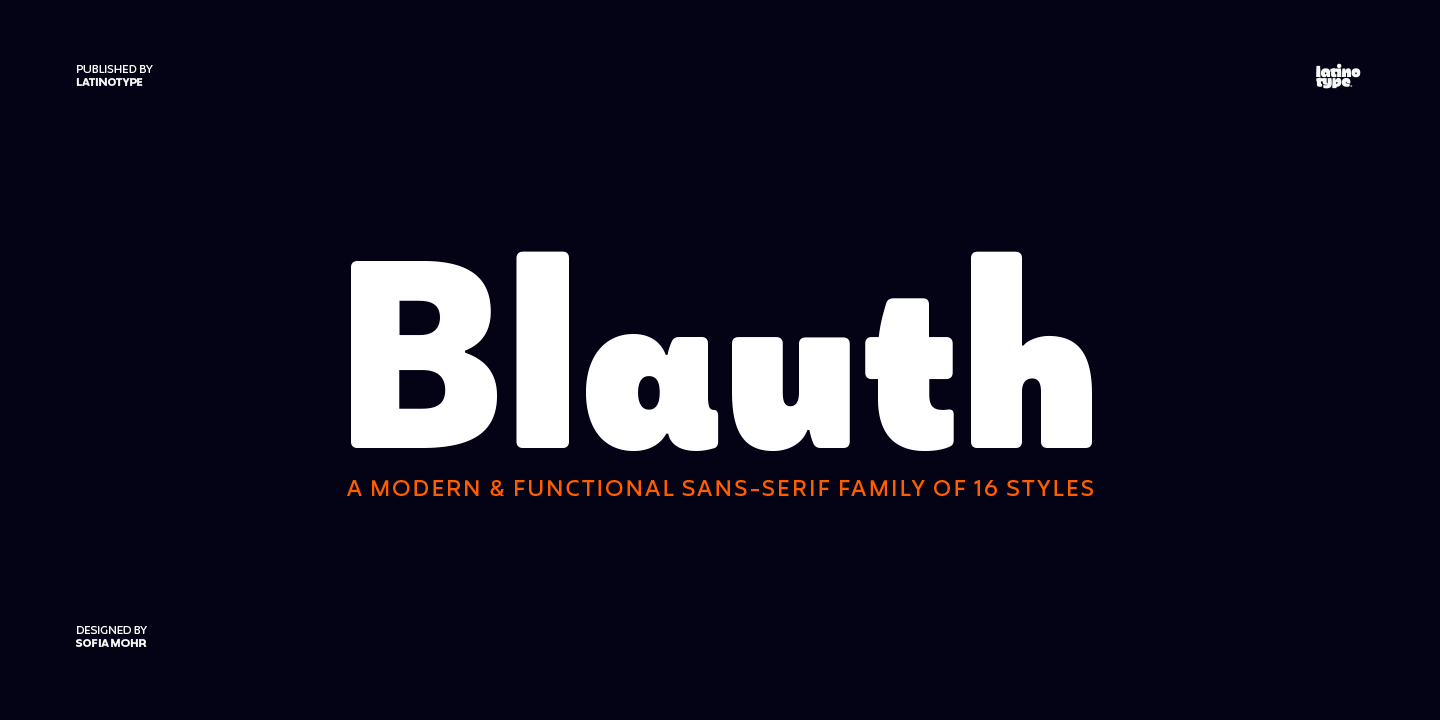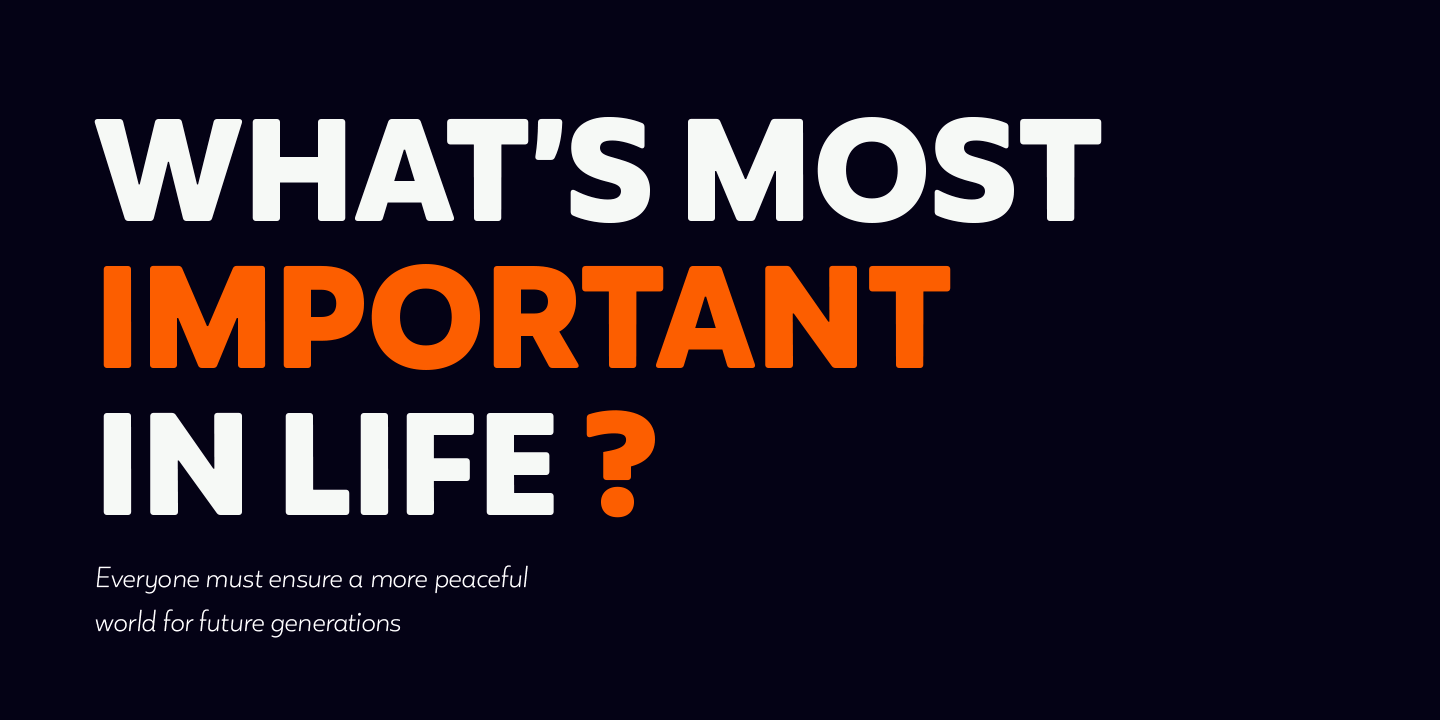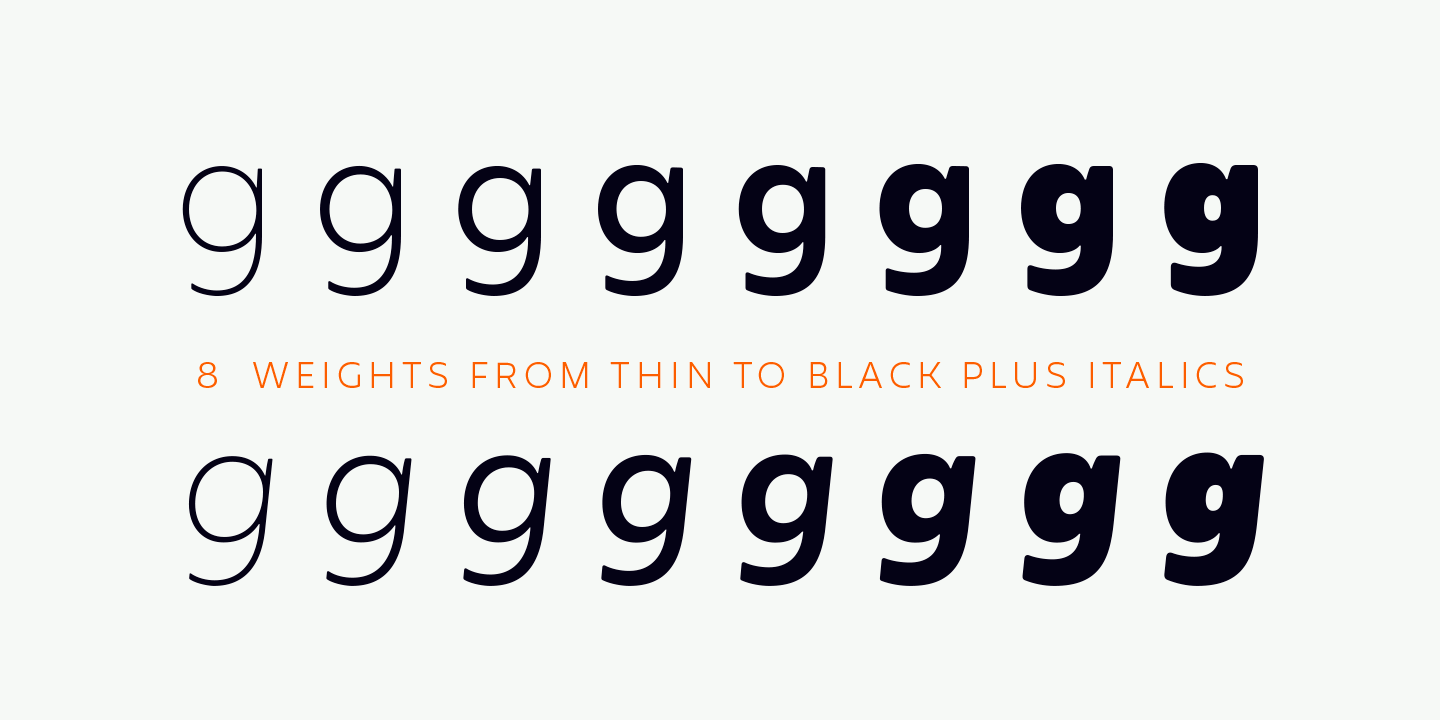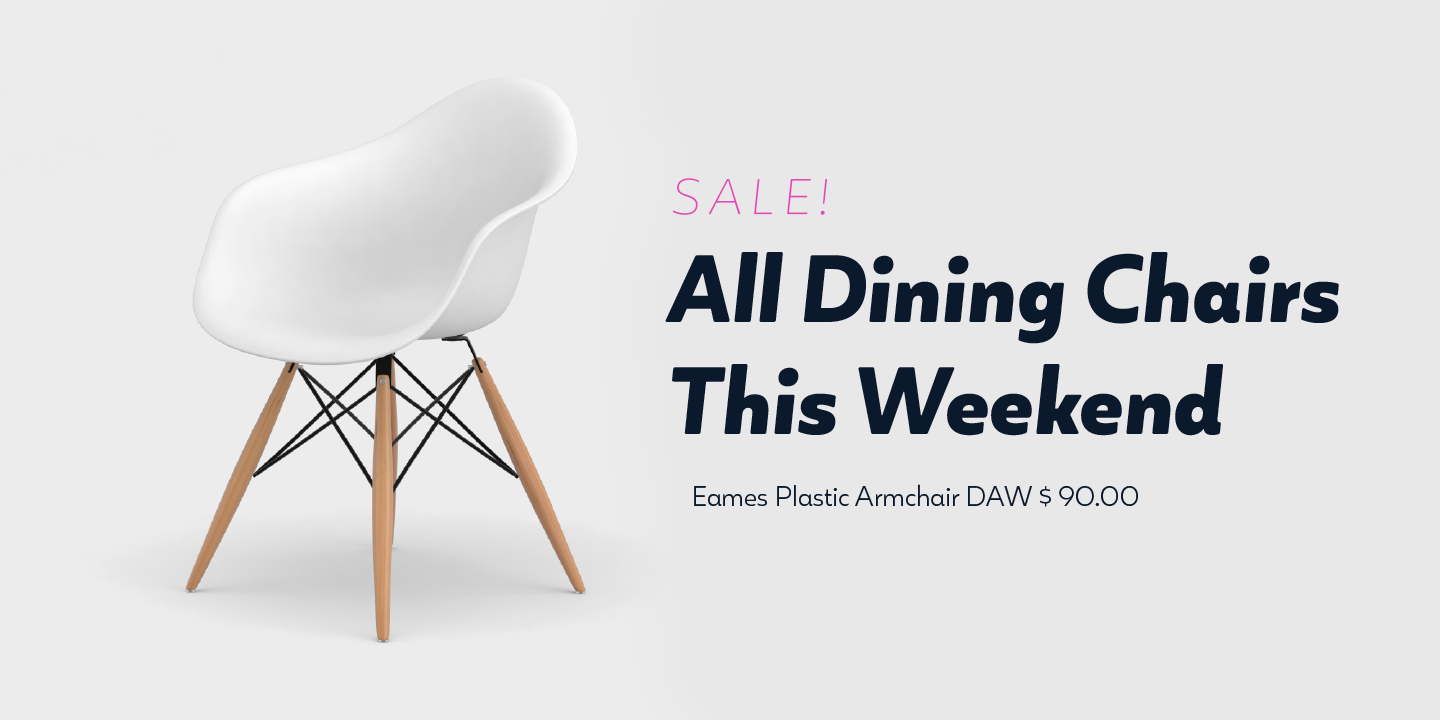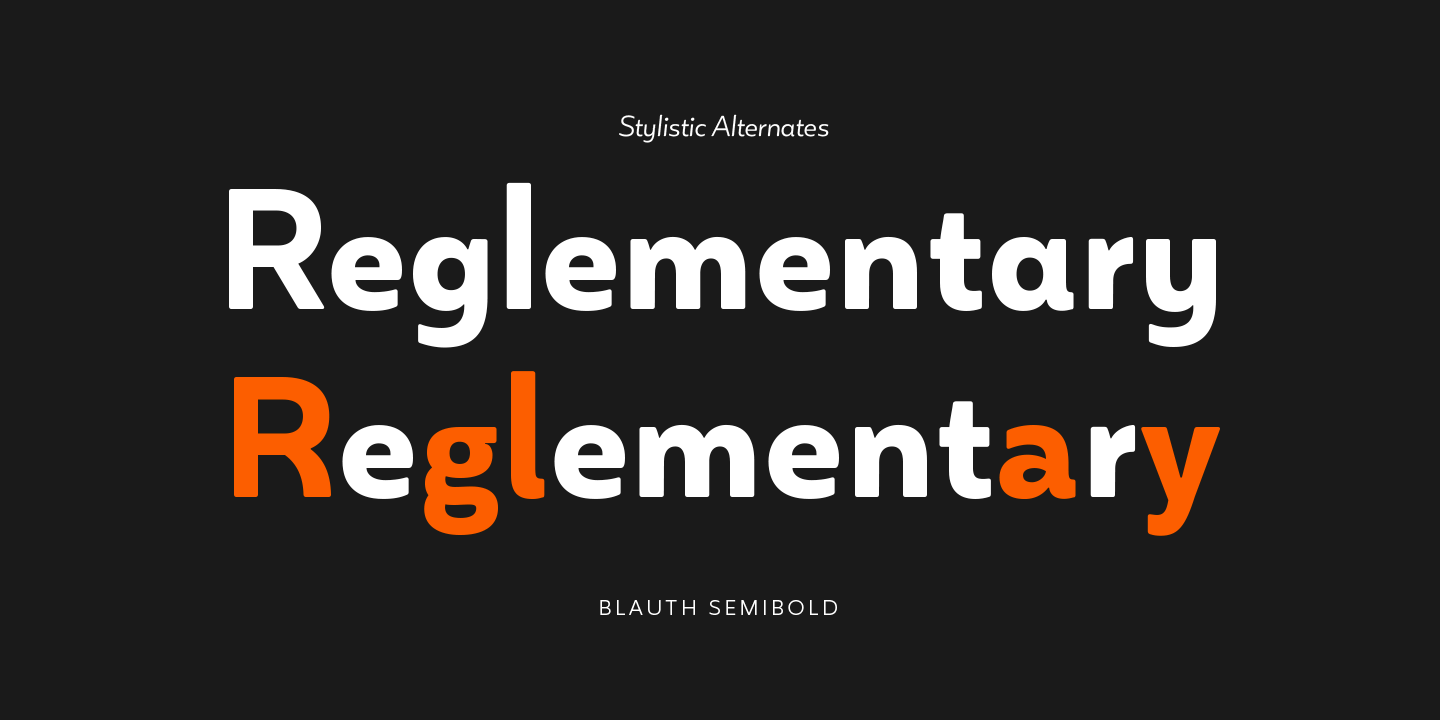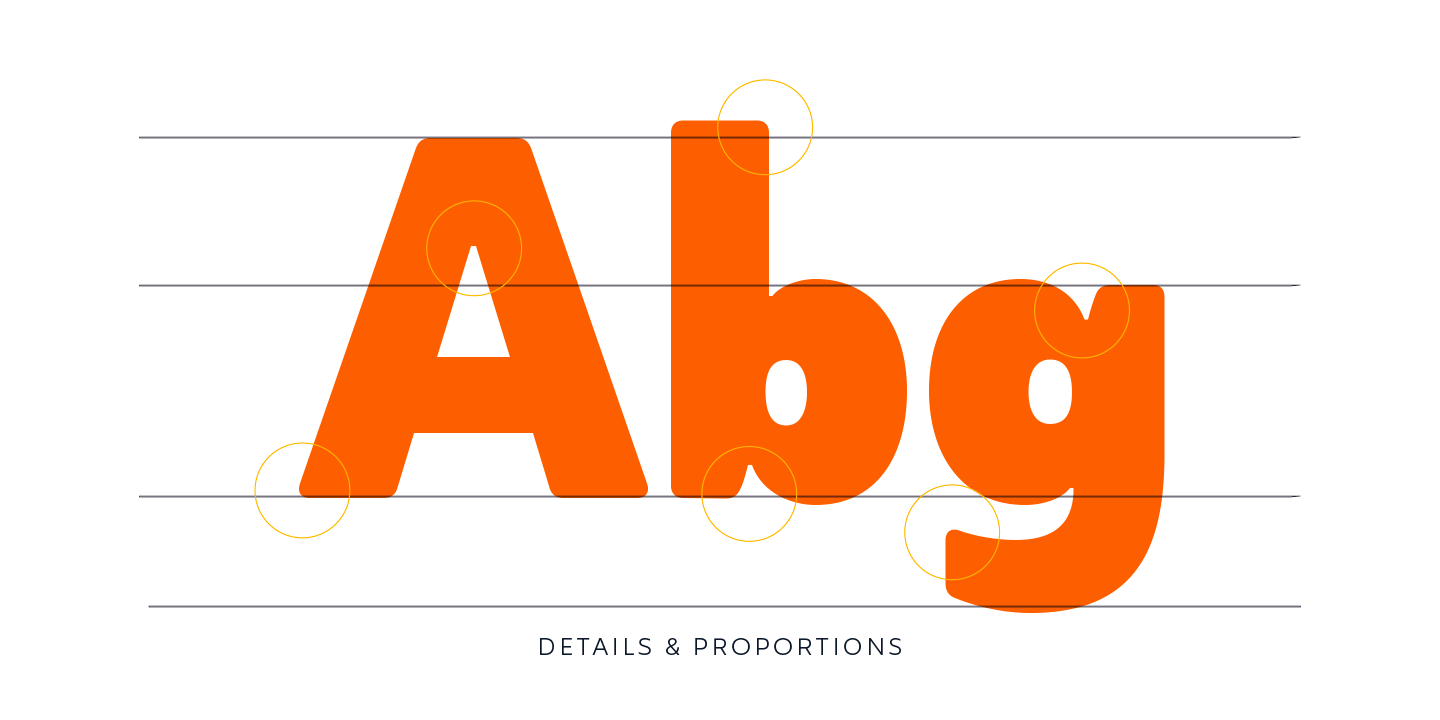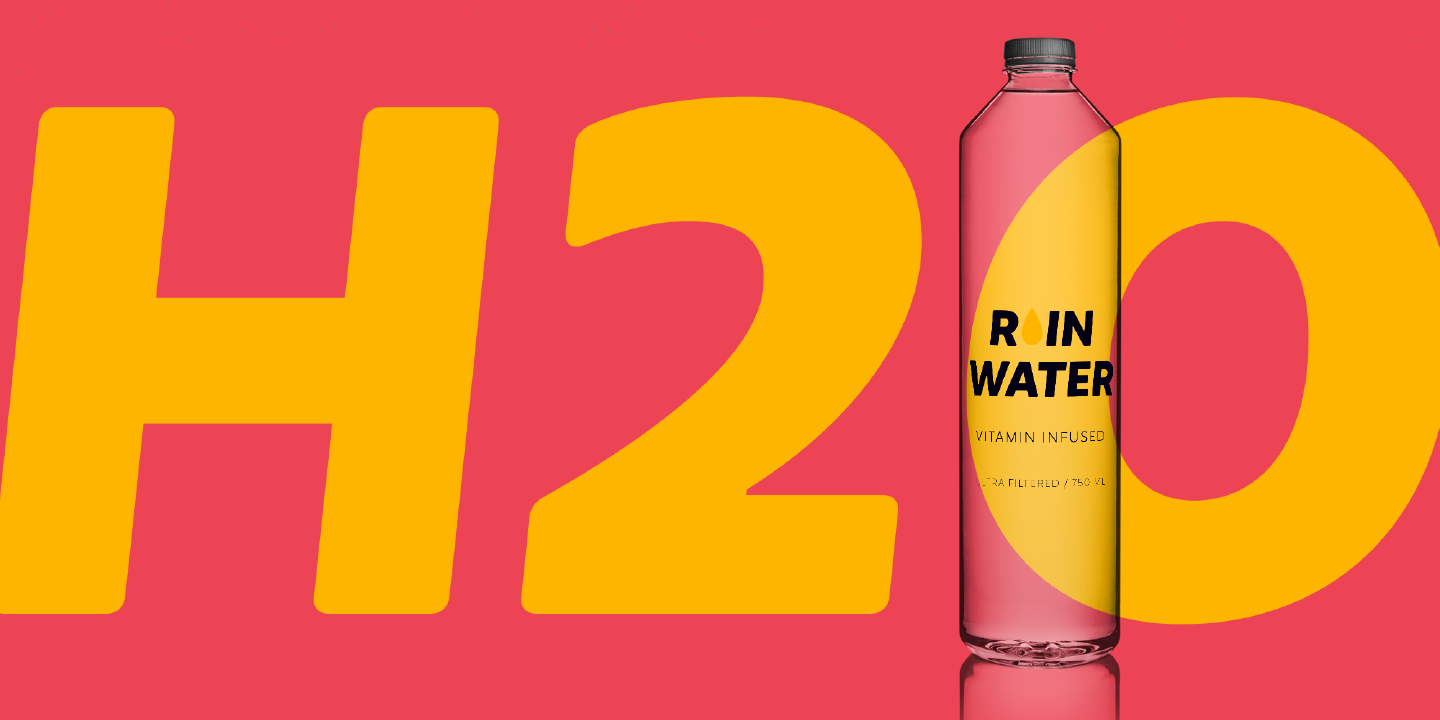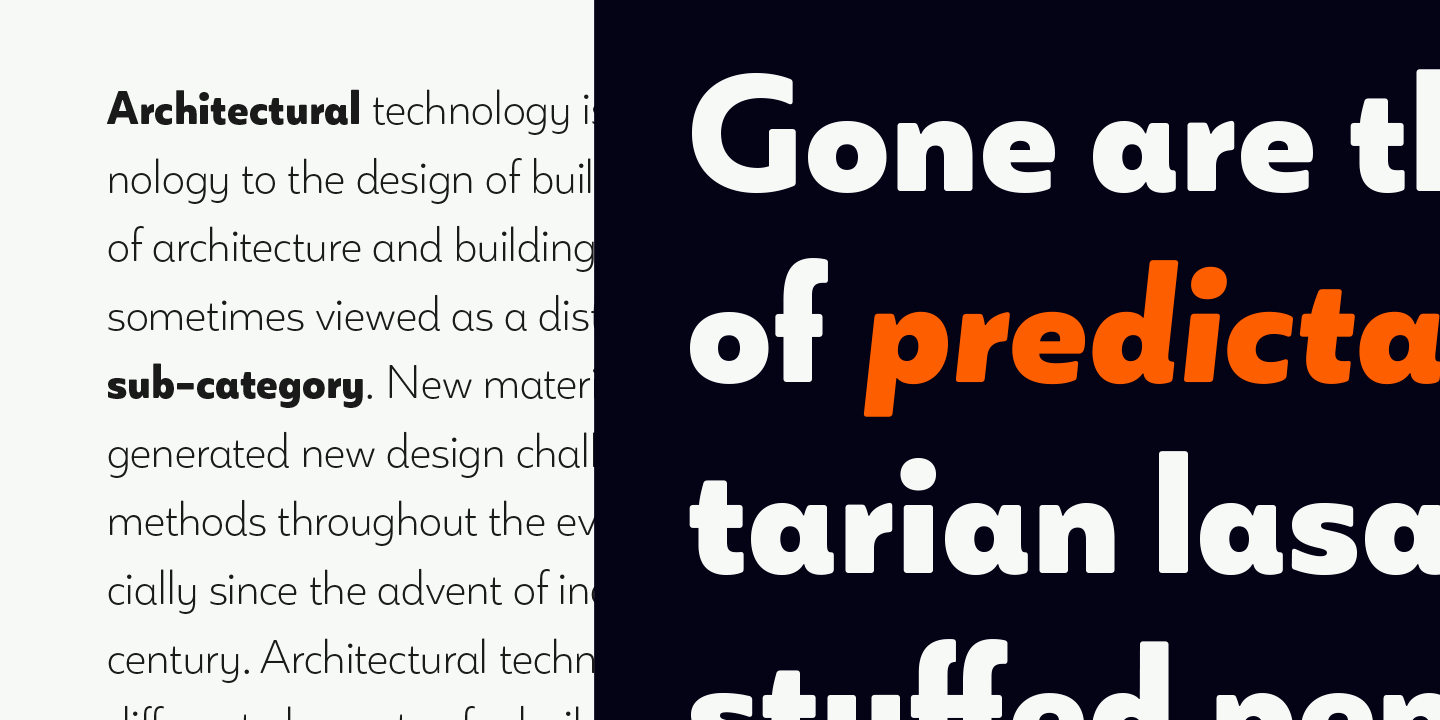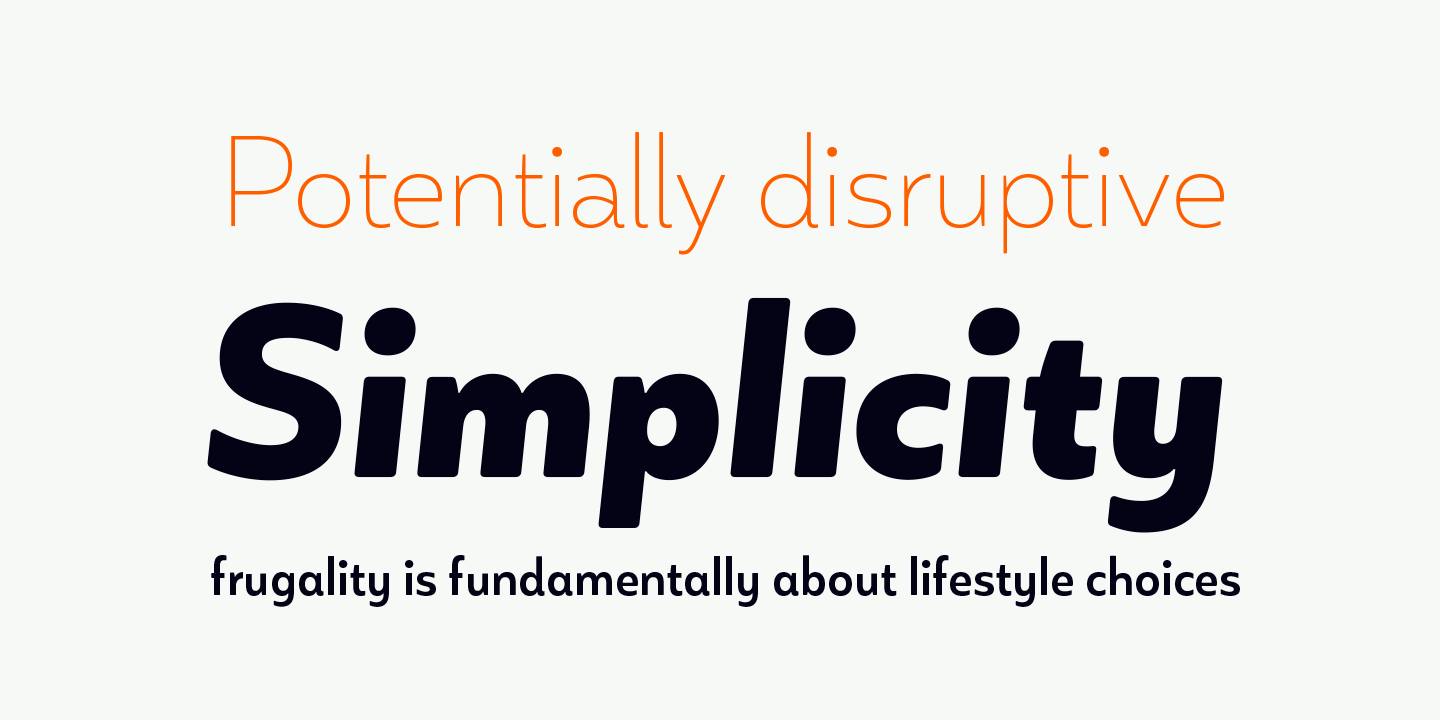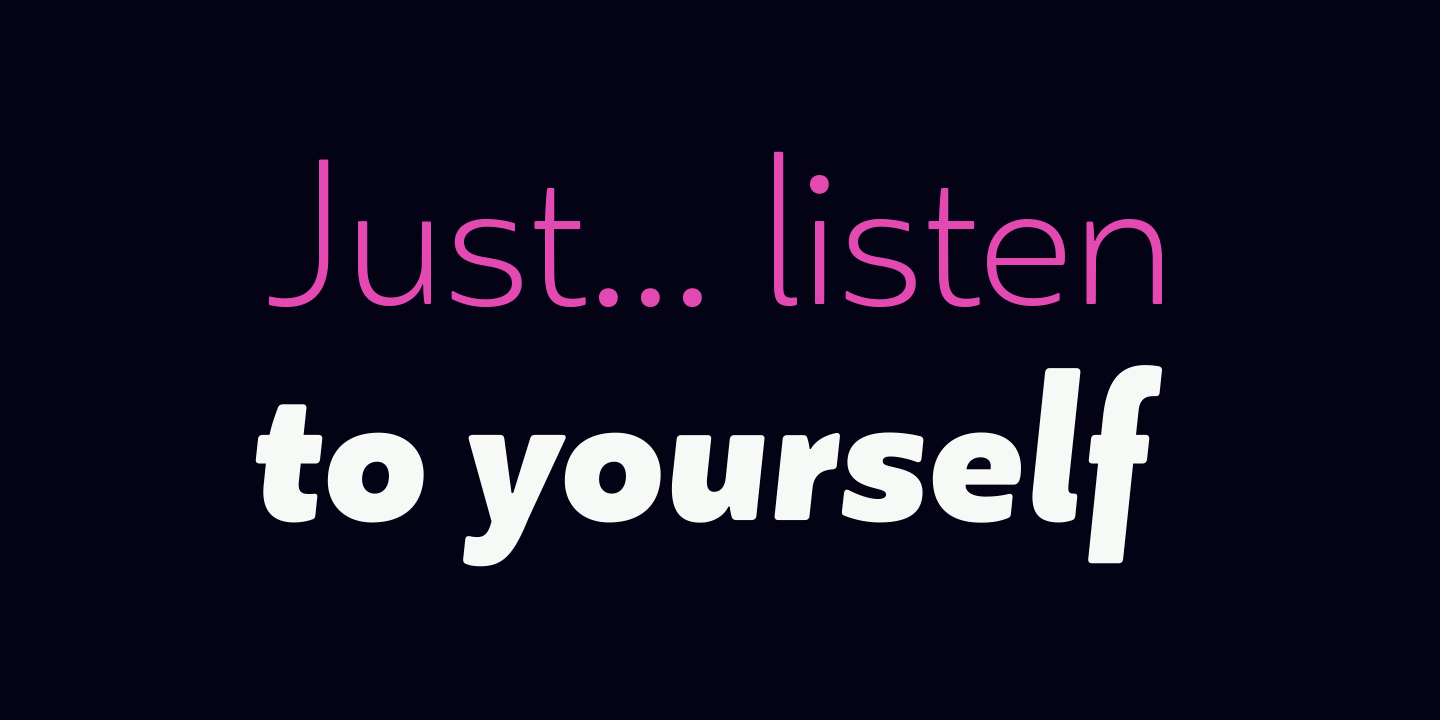
Its small x-height gives it an elegant feel that reminds us of classic typefaces. Blauth is well-suited to continuous text and its uppercase set is ideal for high-impact headlines while its softened corners give your designs a warm and contemporary look.
OpenType features: Ligatures, Alternates